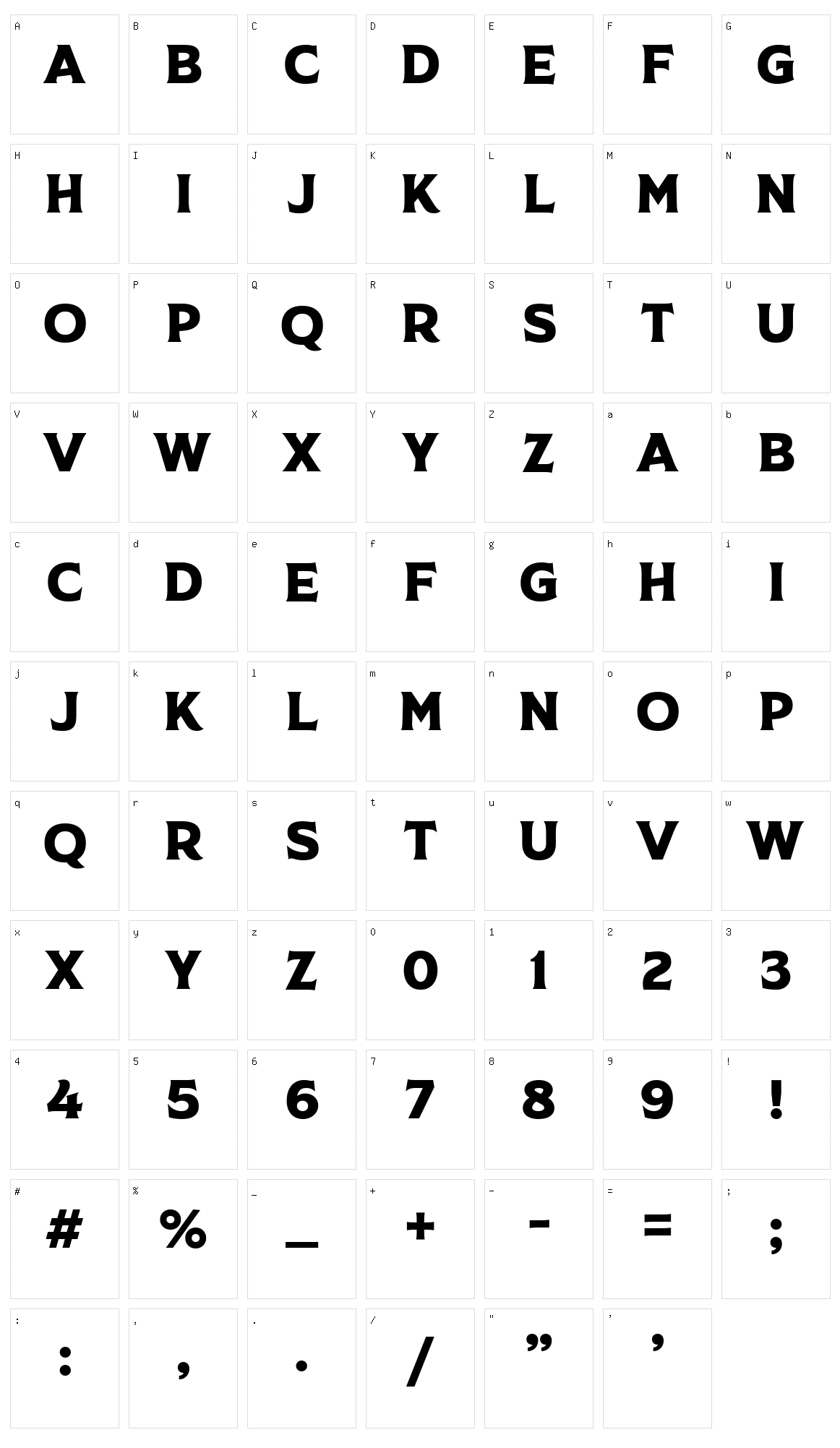
Rodfat is a gorgeous, old-timey display font
with a modern feel!
Inspired by the industrial revolution. It will
bring back the early days of the 20th century.
This collection comes in two style: Rodfat One and Rodfat Two.
It is possibe to be paired perfectly when used together.
Perfectly for any display use. It could easily work for
design product names, posters, signange, packages, logos, labels, and
eye-pleasing typographic designs and more.